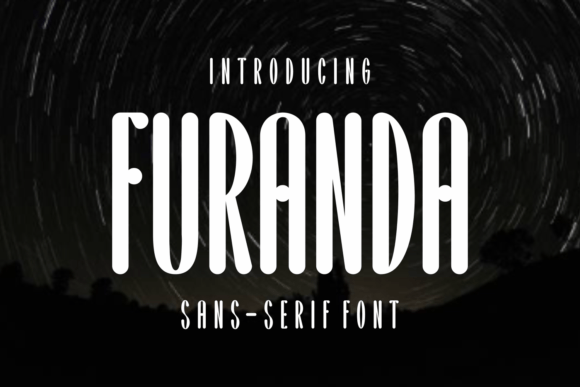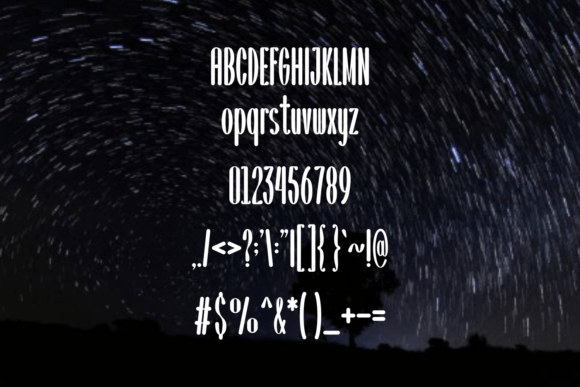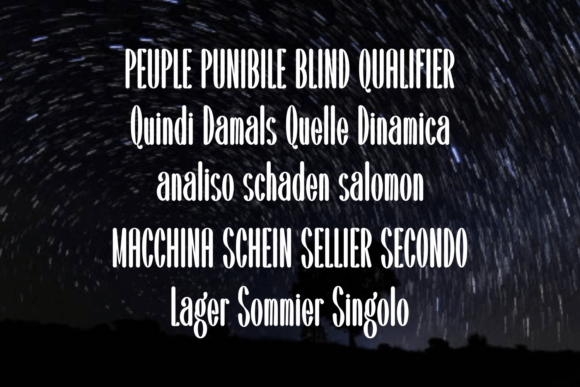
Introduction to Furanda Font Font
Fonts play a crucial role in design, and the Furanda Font font is a typeface that brings both character and versatility to any project. Whether you’re working on a branding project, a website, or a print design, the Furanda Font font offers a unique style that can elevate your work.
Furanda is a clean and attractive sans-serif font, featuring sleek lines and a modern feel.
Perfect for any project, with a hint of sophistication and minimalism sure to make an impact A timeless font that will never go out of style.
Key Features of Furanda Font Font
Why Choose Furanda Font Font?
The Furanda Font font is more than just a typeface – it’s a design tool that helps you communicate your message with style and clarity. Its unique character set and versatile design make it suitable for a wide range of applications, from elegant invitations to bold headlines.
With its carefully crafted letterforms and balanced proportions, the Furanda Font font ensures readability and visual appeal across all mediums.
What makes Furanda Font font special?
The Furanda Font font stands out with its unique design, exceptional readability, and versatility across various design applications.